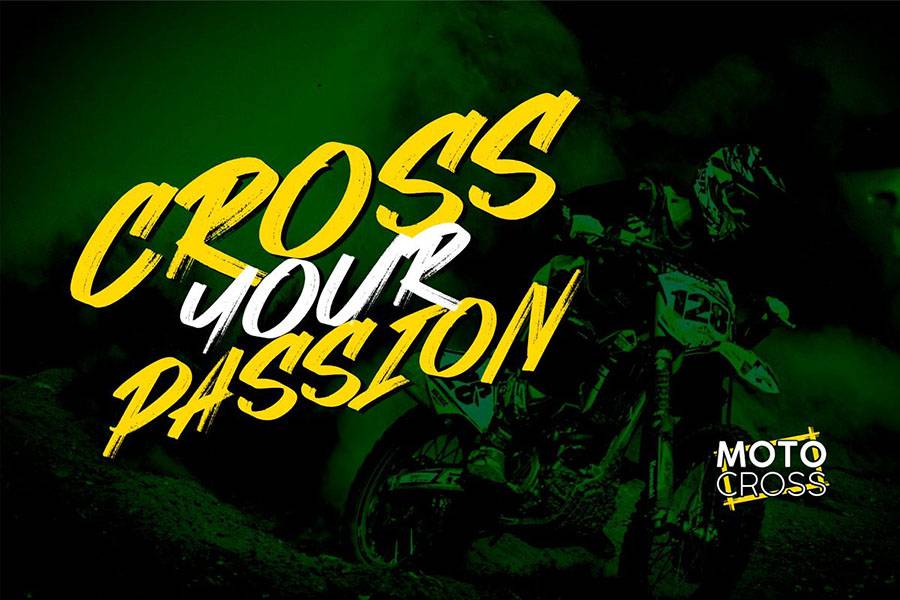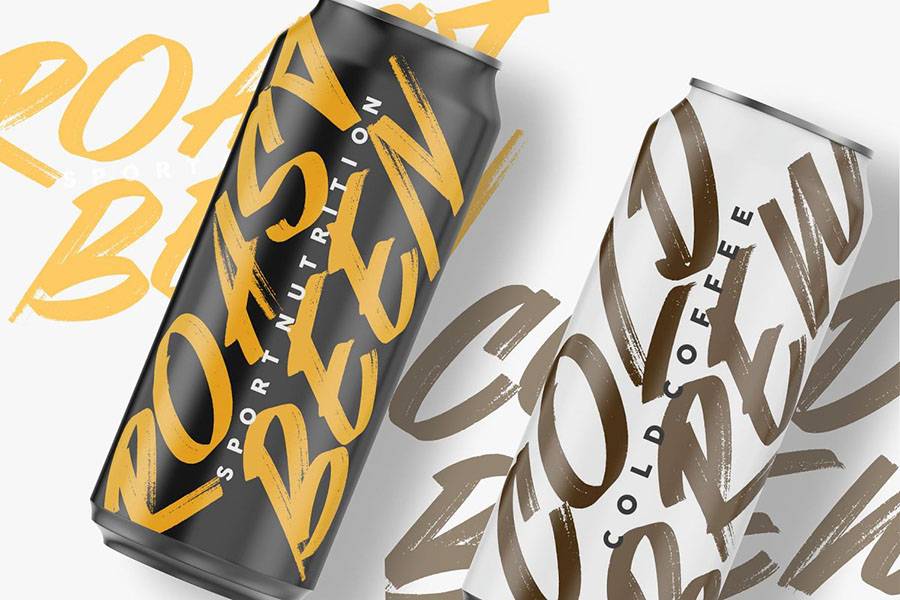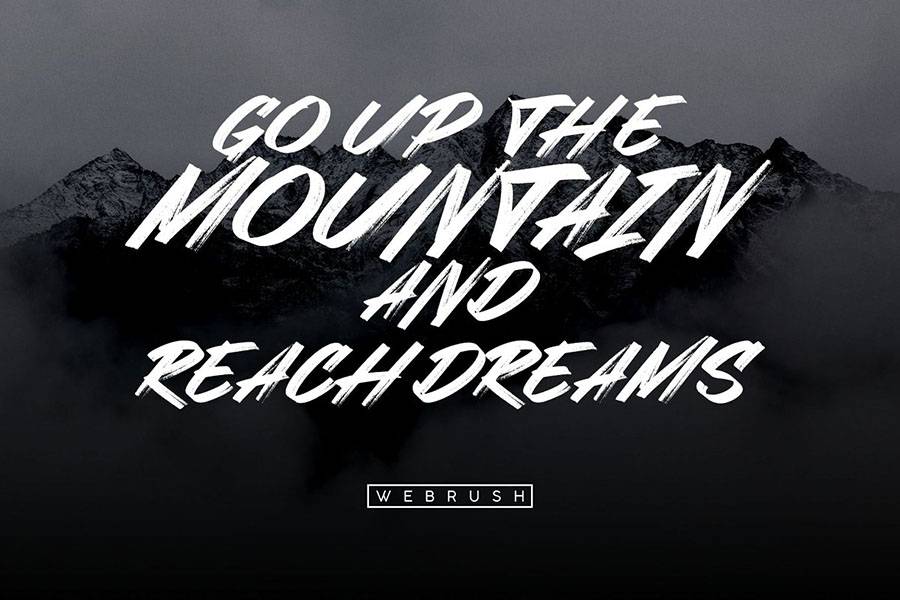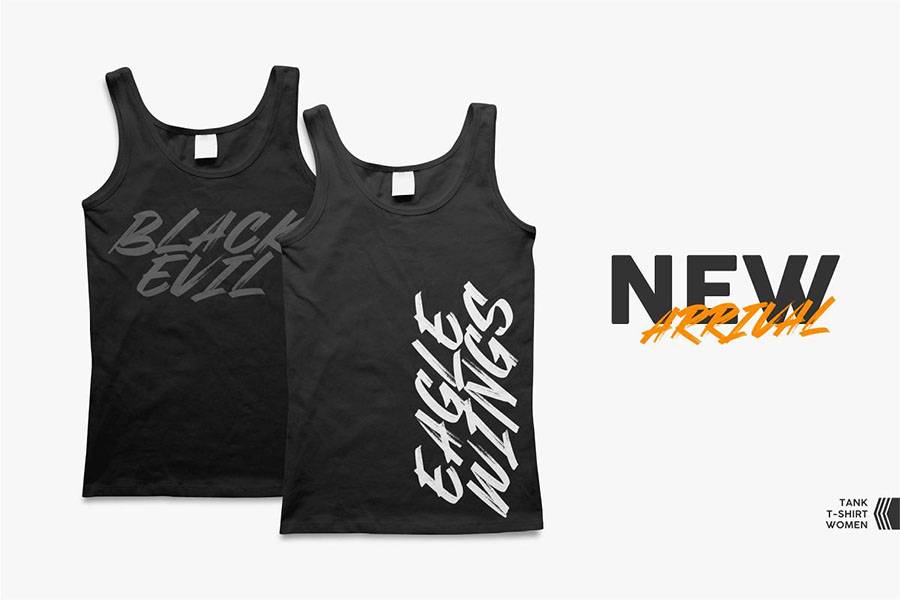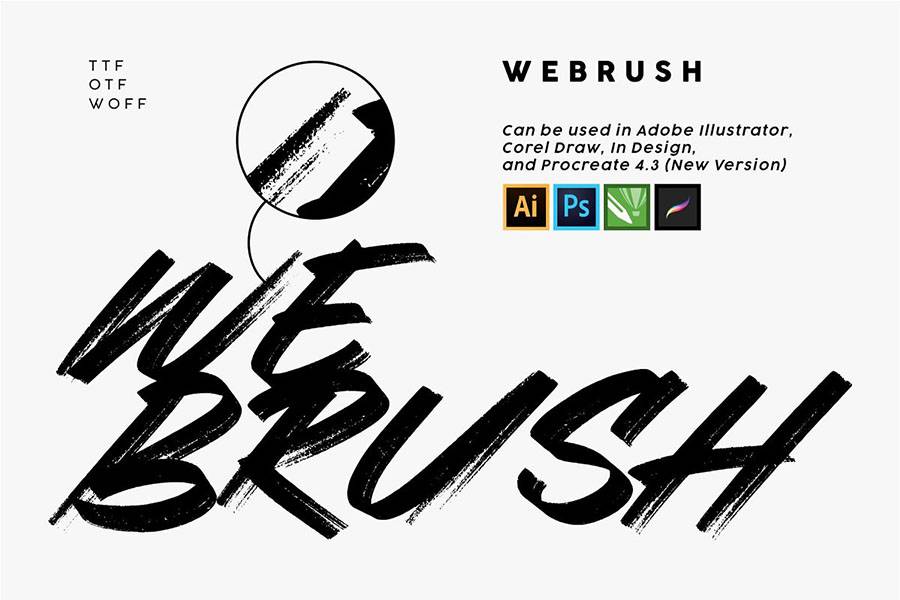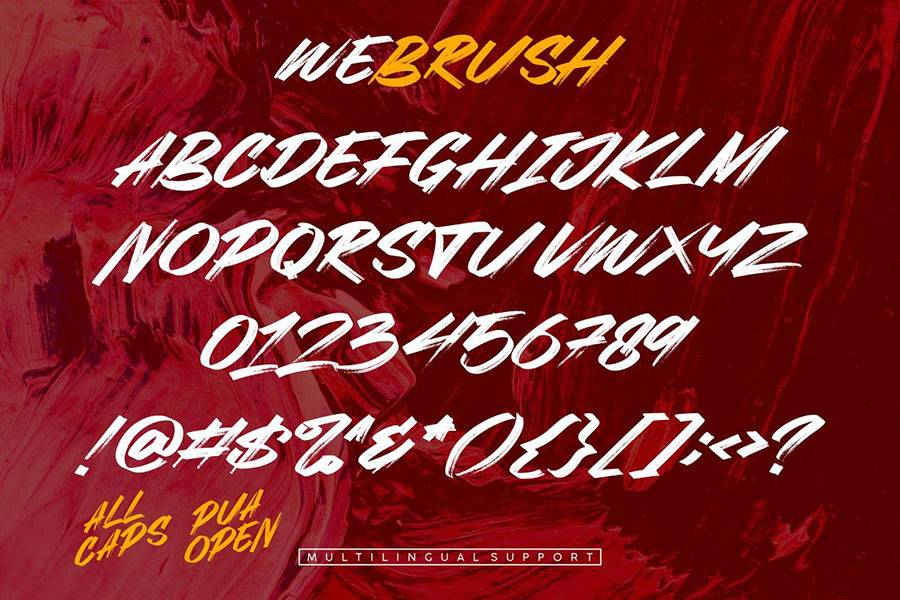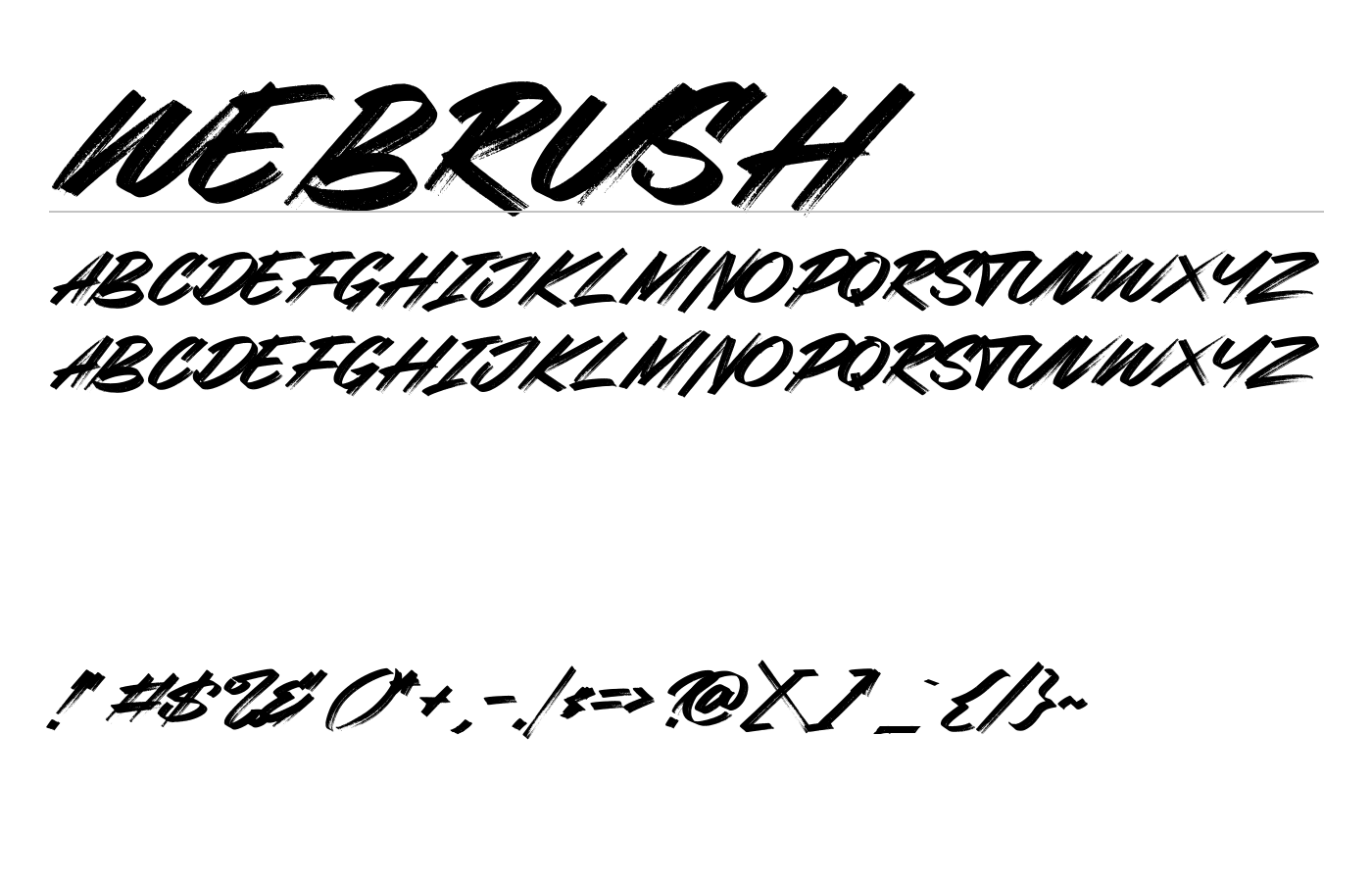
Webrush Urban Style is a bold, energetic script font that mimics dynamic brush strokes with a rough, textured finish. Its slanted, uppercase letterforms bring a modern, edgy vibe perfect for creative and urban-themed designs, making it ideal for eye-catching headlines, logos, and posters that want to convey movement and attitude. This font adds a lively, hand-crafted feel that works well in fashion, streetwear branding, and any project needing a strong, artistic impact.
Webrush Urban Style Font
About Webrush Urban Style Font